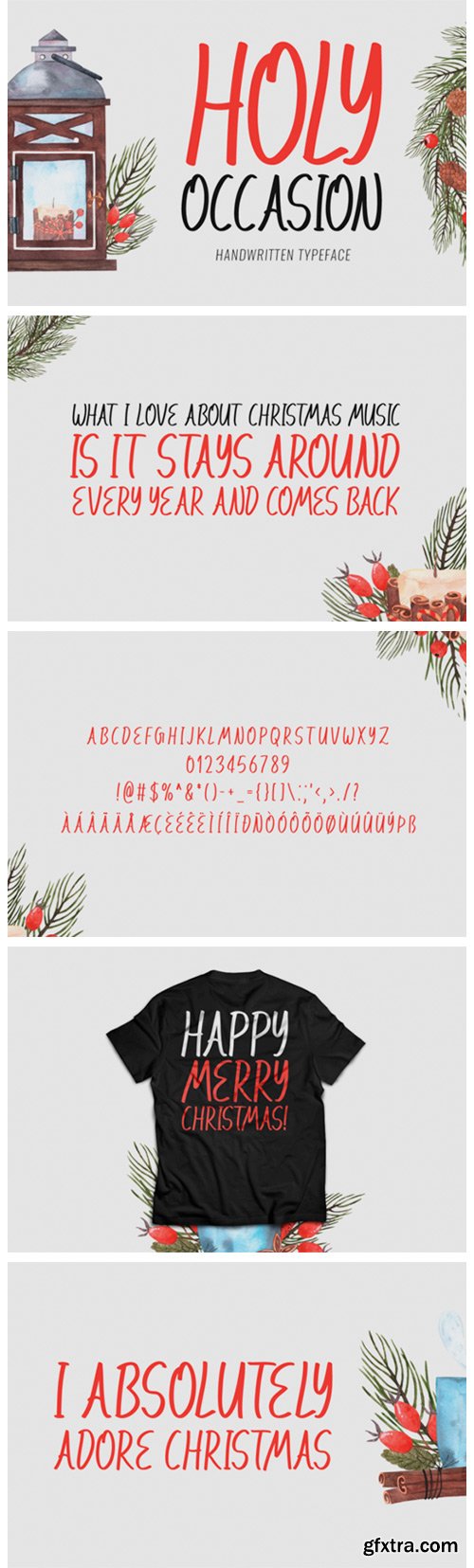
Holy Occasion Font
Holy Occasion is a fresh handwritten font, perfectly suited for stationery, logos, t-shirts, papers, posters, and many more projects!